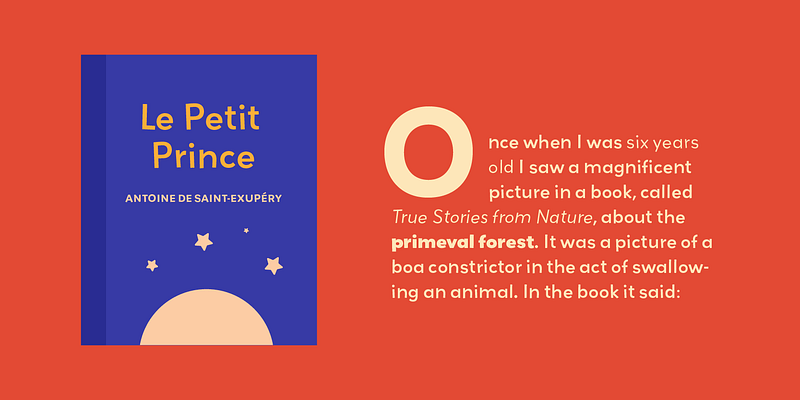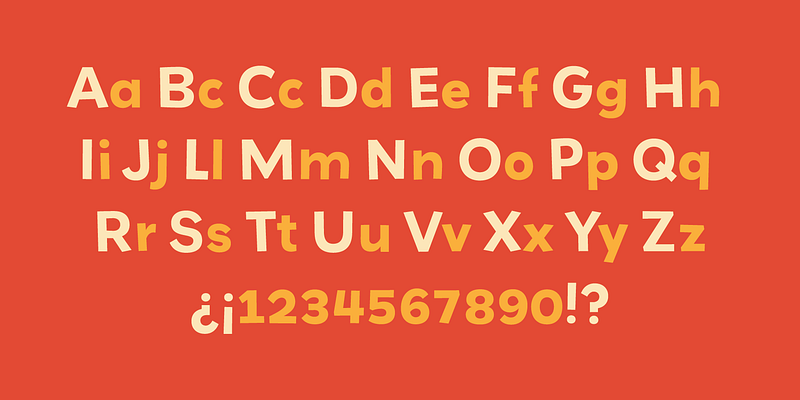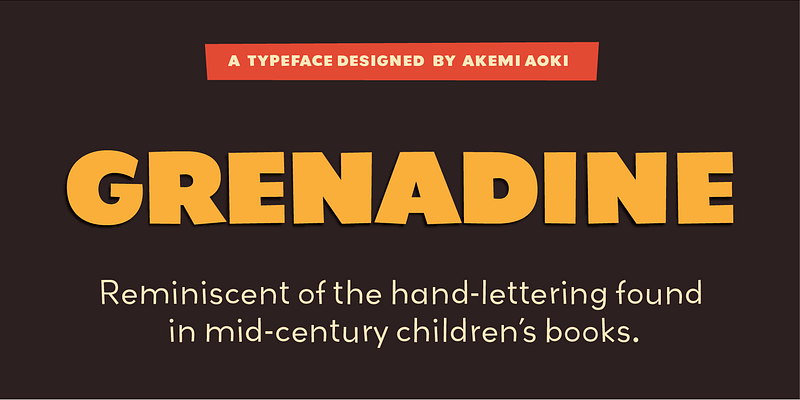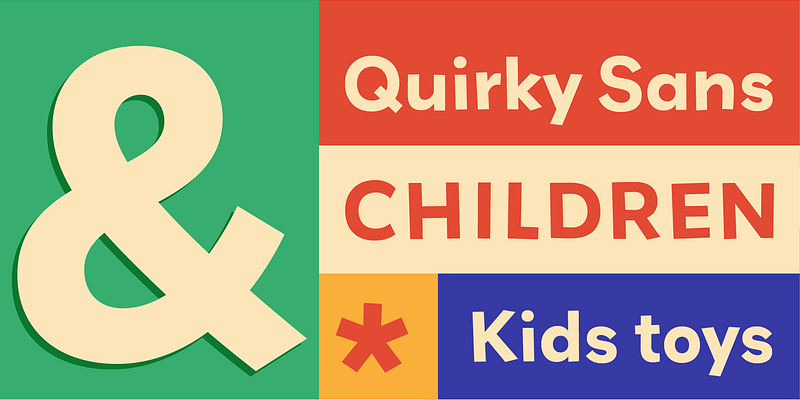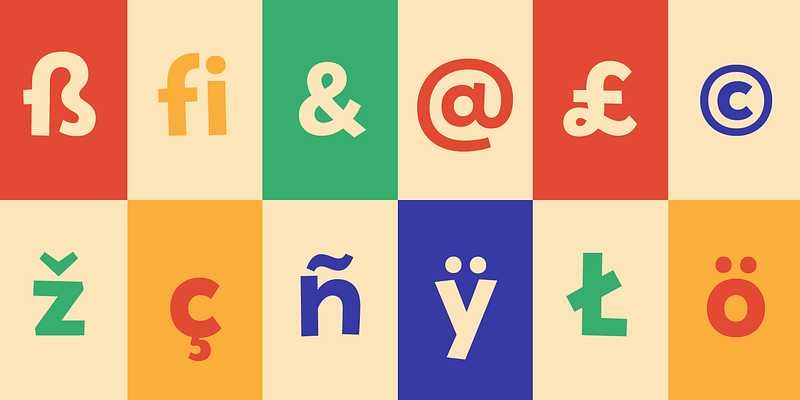
Reminiscent of the hand-lettering found in mid-century children’s books, Akemi Aoki’s MVB Grenadine is a quirky sans, broken free of its geometric roots. Letterforms bounce along the baseline in a jolly dance, yet remain clear and legible, whatever the reader’s age. MVB Grenadine is available in a broad range of six weights, each with italics.